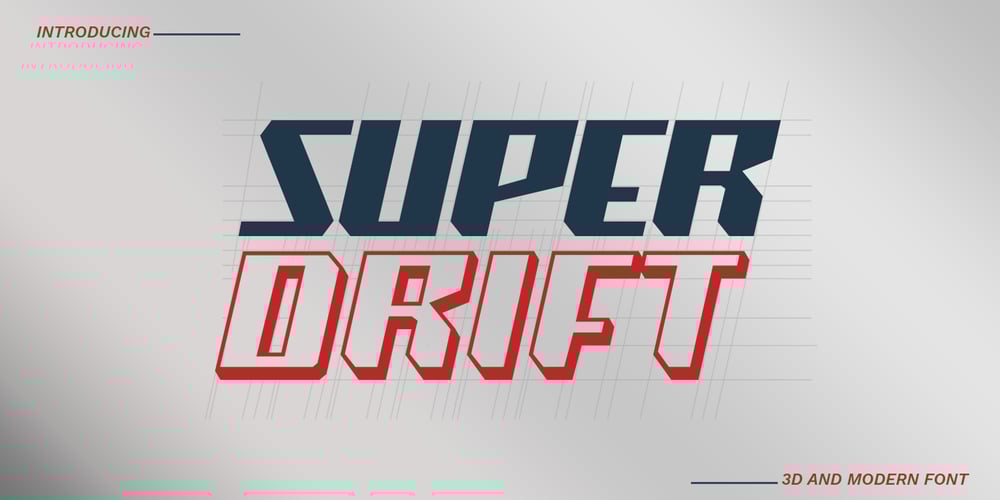
Super Drift
Super Drift font
Super Drift Font Family was designed by Muhammad Afif Ersya and published by Mevstory Studio. Super Drift contains 3 styles and family package options. Super Drift consists of a racing style with sharp lines with a verified tilt angle that will emphasize a modern and sporty style.Super Drift very suitable for automotive magazine covers, racing game covers, logos & branding, product design, labels and so on.What’s Included Super Drift 3D Super Drift Ragular Super Drift Line Standard glyphs Works on PC / Mac Simple installations Accessible in the Adobe Illustrator, Adobe Photoshop, Adobe InDesign, even work on Microsoft Word. Thank you for your purchase!Hope you enjoy with our font!